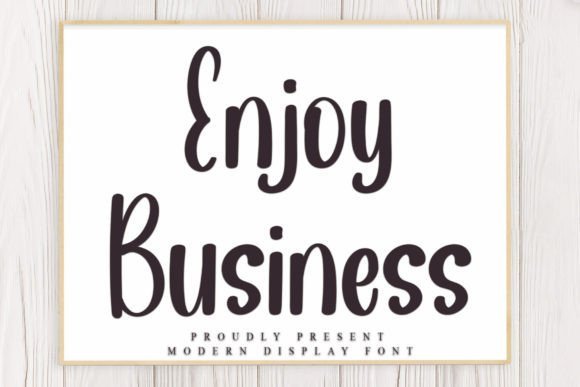
Introduction to Enjoy Business Font
Enjoy Business is a stylish and incredibly elegant script font.
Key Features of Enjoy Business Font
Why Choose Enjoy Business Font?
Enjoy Business Font offers exceptional quality and versatility, making it a valuable addition to your design toolkit. Whether you’re creating for personal projects or commercial use, Enjoy Business Font delivers professional results.